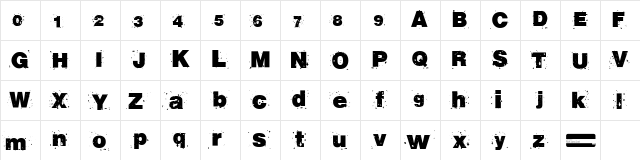
RvD_BETON13 Regular
| Foundry | Rich.vom.Dorf. |
| Designer | Rich.vom.Dorf. |
Design Context for RvD_BETON13 Typeface
RvD_BETON13 takes a measured approach to typography — its balanced proportions and neutral character make it a reliable workhorse for both digital and print work.